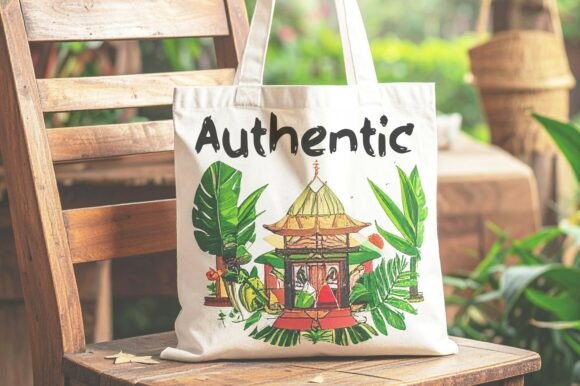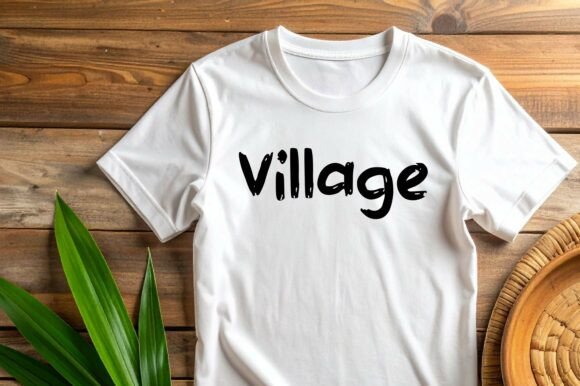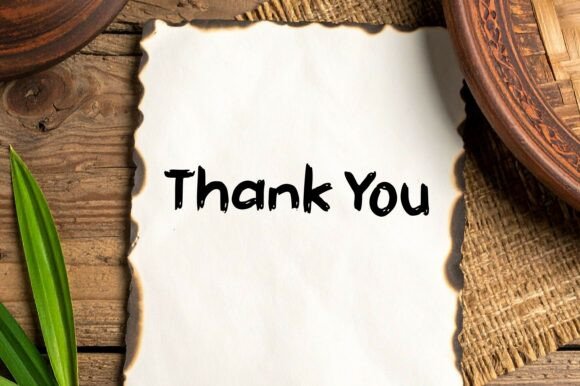
Discover the Timeless Charm of Bikang Font
Remember the feeling of flipping through a vintage magazine or browsing a quaint, local market stall? The nostalgic allure of handmade craftsmanship and the organic beauty of nature? That’s exactly what Bikang Font captures in its curvaceous, streamlined shapes and subtle irregularities.
As a display font, Bikang Font stands out for its unique blend of traditional charm and modern appeal. With its lovely variations in stroke width and baseline, it’s the perfect choice for designers looking to add a touch of authenticity and individuality to their projects.
Whether you’re working on a branding project for a craftmaker, creating packaging for an organic food enterprise, or designing posters for a cultural event, Bikang Font is the ideal companion to help you convey a sense of tradition and craftsmanship that resonates with your audience.
Bikang Font Key Features
- Unique Characteristic: Bikang Font features a unique blend of traditional and modern elements, making it an ideal choice for designers seeking a distinctive and eye-catching aesthetic.
- Font Style: Bikang Font is available in multiple styles, including Regular, Bold, Italic, and Bold Italic, providing designers with a range of options to suit their specific design needs.
Bikang Font Review
Overall, I think Bikang Font is a solid choice for digital designers, but it’s not without its limitations. Let’s dive into what works well and what doesn’t.
Unique aesthetic: Bikang Font has a distinct, hand-drawn feel that can add a touch of personality to digital designs.
High-quality glyphs: The font includes a wide range of glyphs, including Latin, Cyrillic, and Greek characters, making it suitable for international designs.
Strong legibility: Bikang Font is easy to read, even at smaller font sizes, which is a must for digital designs where text is often smaller.
Limited font weight options: Bikang Font only comes in a few font weights, which may limit its versatility in certain designs.
May not be suitable for formal designs: Bikang Font’s hand-drawn feel may not be suitable for formal or corporate designs where a more traditional font is preferred.
Not ideal for small text sizes: While Bikang Font is legible at smaller font sizes, it may not be the best choice for very small text, such as in captions or footnotes.
Overall, I think Bikang Font is a great choice for designers looking for a unique, hand-drawn font for digital designs. Just be aware of its limitations and use it accordingly.
Tips: Use Bikang Font for headings and titles to add a unique touch to your design. Experiment with different font sizes and colors to create a visually appealing effect.
Tips: Use Bikang Font for logos, headings, and other design elements that require a unique and distinctive look.
Tips: Use Bikang Font for headings and titles to add a professional touch to your presentation or document.
Bikang Font is ideal for:
1. Logos and branding
2. Headings and titles
3. Creative and artistic designs
4. Professional presentations and documents